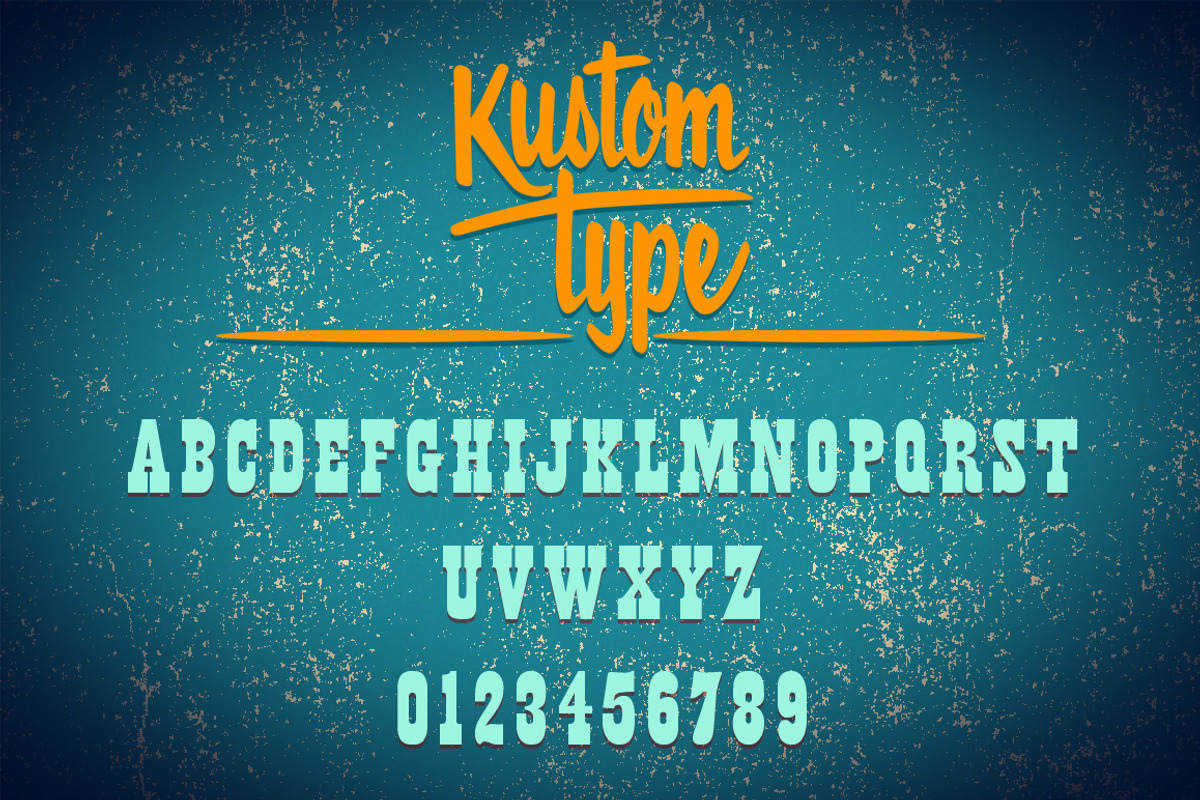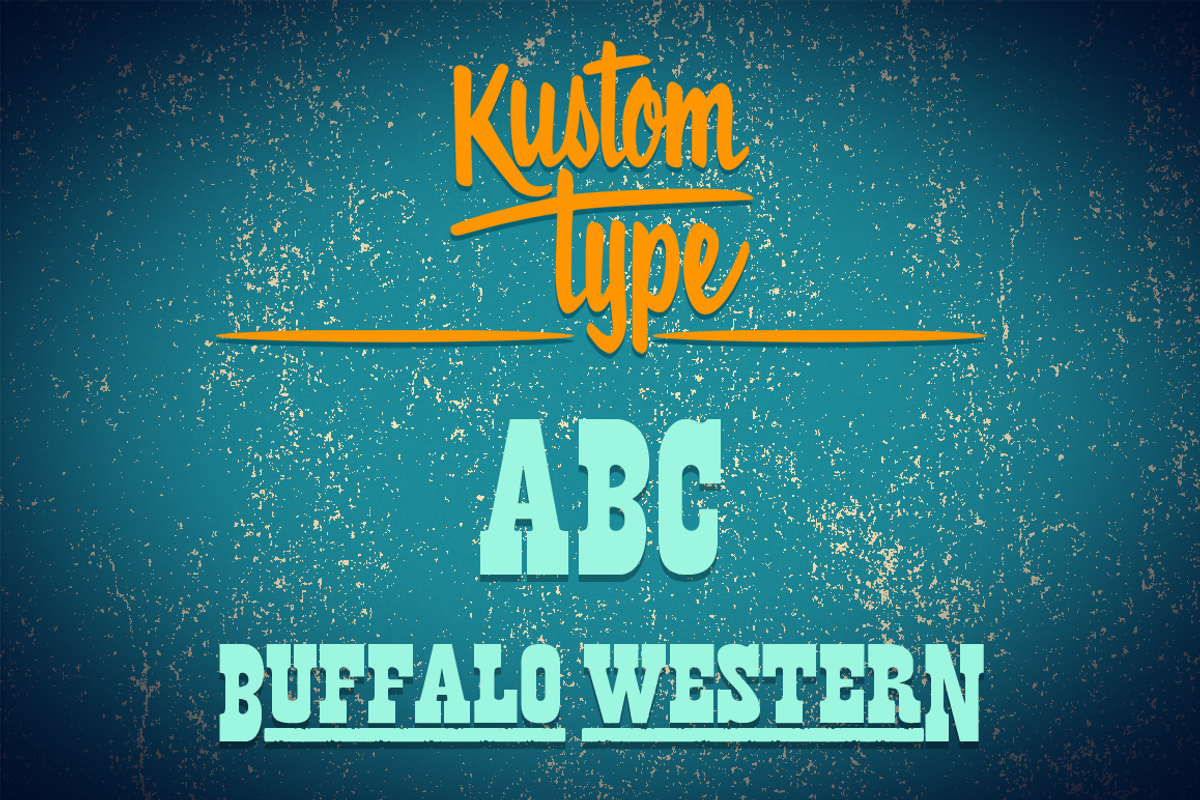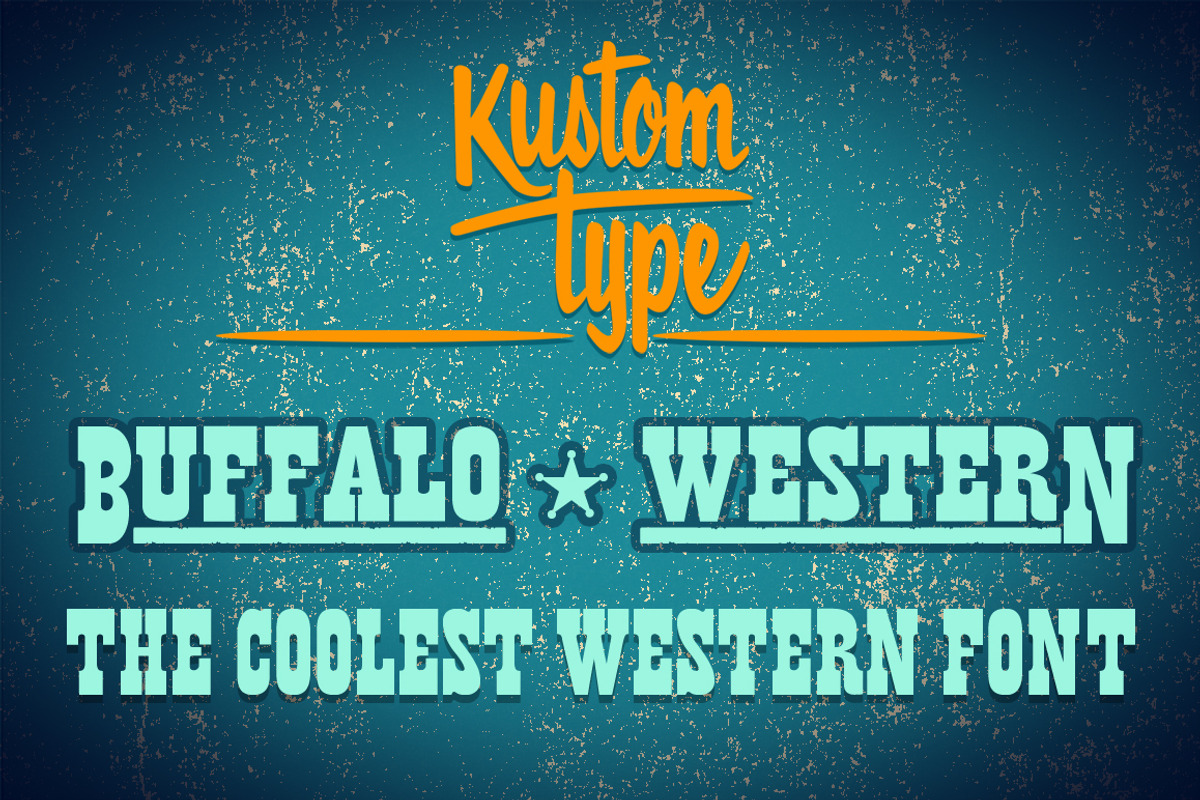
Buffalo Western Font
Buffalo Western Font by Kustomtype is a font selected for branding, posters, packaging, typography.
- All characters are fully hand traced and vectorized and provided with appealing glyphs and cool catchwords.
- Buffalo Western Regular
- Buffalo Western Catchwords Regular
- Buffalo Western Poster Regular
Why Buffalo Western Font is worth a look
Buffalo Western Font by Kustomtype fits naturally into Branding, posters, packaging, typography.